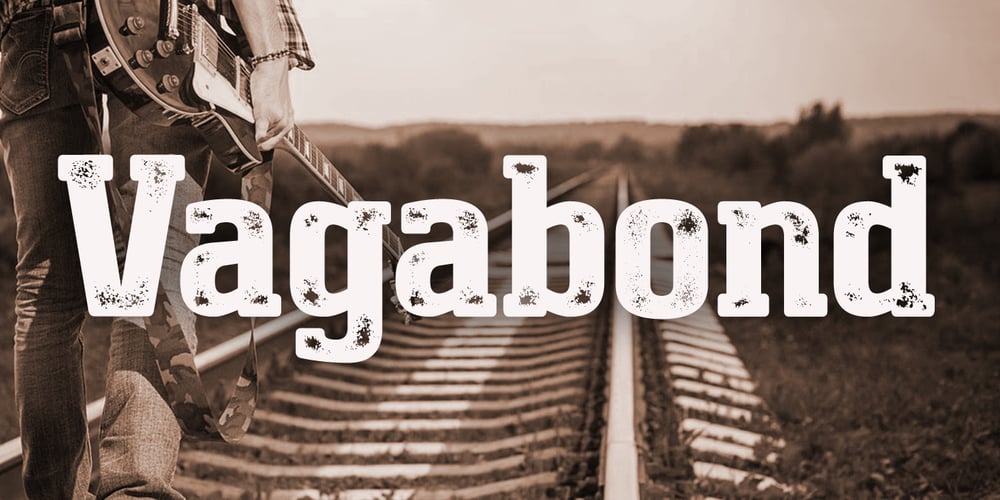
Vagabond Font Family was designed by Keith Tricker and published by Studio K. Vagabond contains 2 styles and family package options. Vagabond is a vintage font family whose natural home is on the back porch, ranch or railroad. A rugged slab serif with a lived-in look, it’s lends a note of earthy authenticity to any graphic design project.